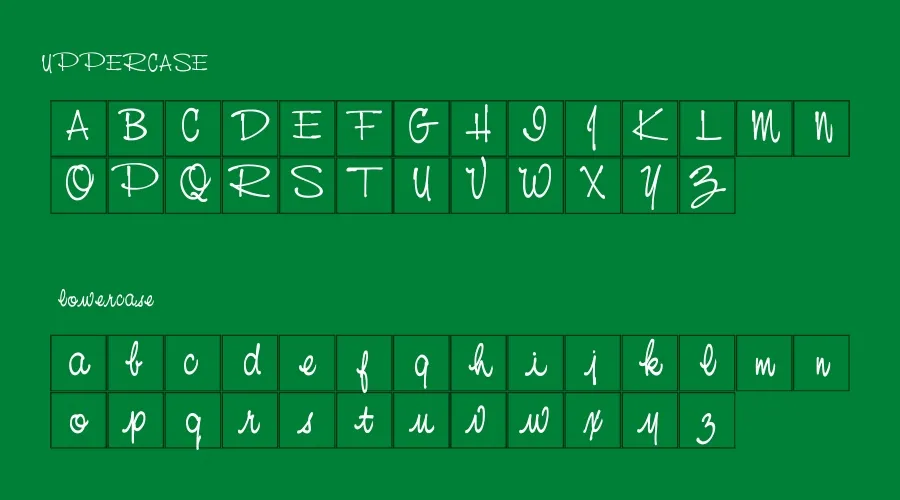
About Nevison Font
Unidaas created an amazing style called Nevison Font. You can use it for posters, logos, logotypes, insignia, storefronts, t-shirt designs, labels, flags, magazines, and other vintage design projects. There is no doubt that this is a stunning font.
An elegant and highly detailed font, this is a great choice. The font contains all glyphs and swashes in PUA-encoded format, so you can access them easily. Many official projects are best suited for this stunning font. Designers love this international font.
This is an elegant, flowing font with a delicate feel. It matches a wide range of designs due to its beautiful and well-balanced characters.
There are beautiful glyphs, smooth lines, and stunning alternates in a font. Discover how it can help you realize your most creative ideas.
The overall neutrality of the typeface patterns is not without elegance, and all of its details are calculated with mathematical precision and care. Developing a quality corporate typeface involves developing typographic designs for a wide range of tasks.
A fantastic texture style with an eye-catching design is one of the best and most attractive samples out there. The typeface grasps a wide run-off area and subject regions from news, governmental issues, newscasting, and so on.
This is a fantastic option for projects that require an exclusive and innovative feel. This design is an excellent choice whether you’re seeking such a design with a natural and alive appearance. For use in creating the website content, users can insert the font into a CSS file.
Name | Nevison Font |
Designer | Unidaas |
Style | Script |
- Nevison Regular